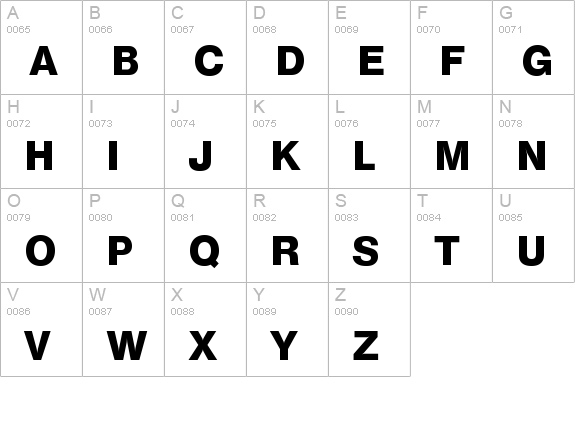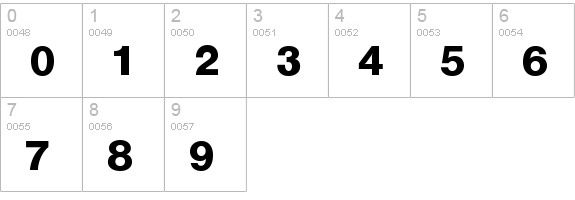
Olympia-ExtraBold is an extra-heavy, attention-grabbing variant in the Olympia typeface family \xE2\x80\x94 well suited to high-impact headlines, posters, and bold branding.
The Olympia-ExtraBold font is a striking and powerful typeface that commands attention with its bold and assertive presence. Its thick, sturdy letterforms exude confidence and make a bold statement, perfect for headlines, titles, and other design elements that need to stand out. The strong, solid strokes of Olympia-ExtraBold give it a modern and dynamic feel, making it a versatile choice for a wide range of design projects. What makes Olympia-ExtraBold even more appealing is that it is available for free download at FontsMarket.com. This means that you can easily access this impactful font without any cost, making it a valuable addition to your font library. Whether you're working on a branding project, poster design, or any other creative endeavor, Olympia-ExtraBold is sure to enhance your work with its bold and commanding presence. Download it now and make a bold statement with Olympia-ExtraBold!